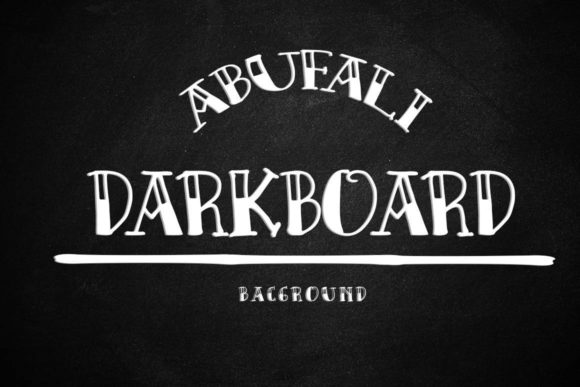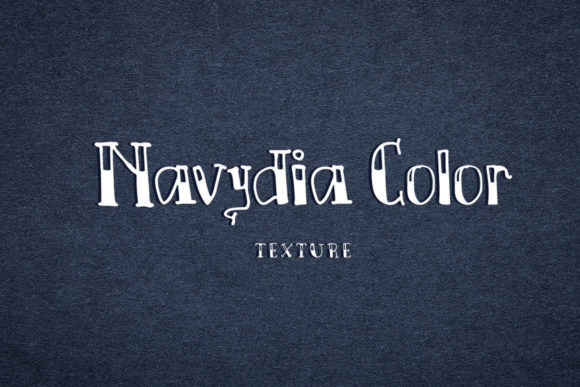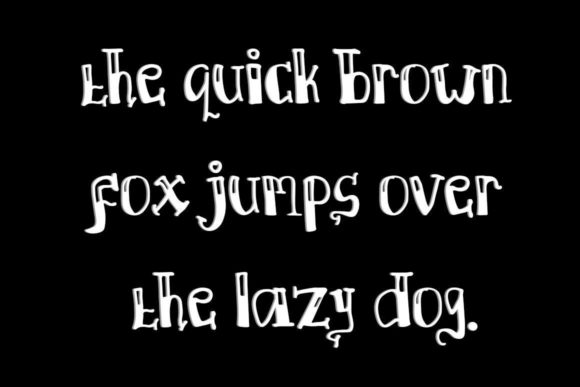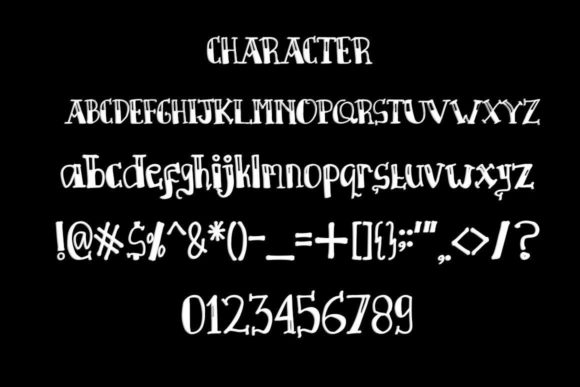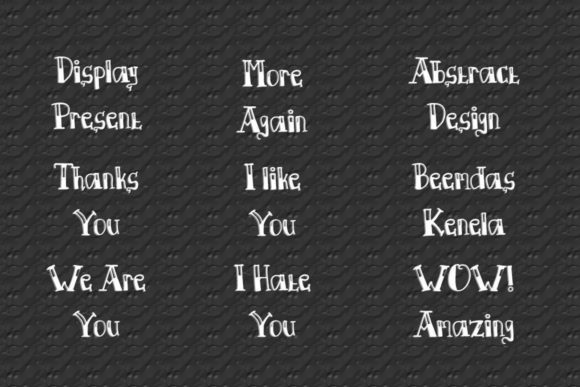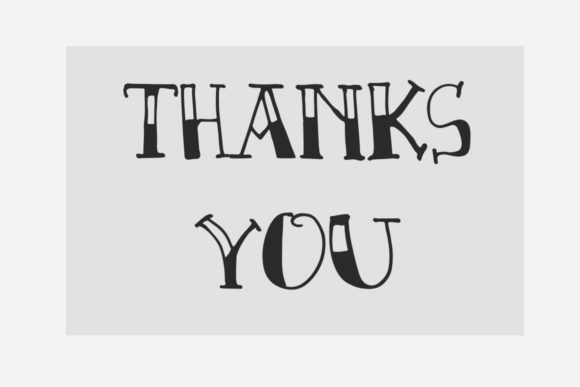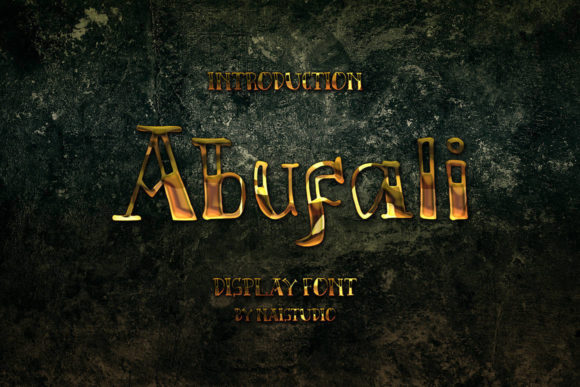
The Abufali Font: A Playful Game-Changer for Your Designs
This unique and interesting display font embodies playfulness and authenticity, making it the perfect choice for any project you can think of. Add this chunky lettered font to your designs and notice how it makes them come alive!
An Honest Review of Abufali Font
- ✨ Unique and playful design that adds a touch of personality to any project
- ✅ Highly legible, even in large and small sizes
- 💥 Perfect for titles, headings, and emphasis text
- 🎉 Works well with both digital and print designs
While Abufali is an amazing font, there are a few things to keep in mind:
- 🤔 May not be suitable for body text or long paragraphs, as it’s primarily designed for display purposes
- ⚠️ Limited availability of stylistic alternates, which may limit its versatility in certain design contexts
One of the best things about Abufali is its support for OpenType features and glyphs. Here are a few tips for getting the most out of these features:
- Use the glyph panel in Adobe Photoshop or Illustrator to access alternative characters and ligatures
- Experiment with different stylistic alternates to add visual interest to your design
The Backstory of Abufali Font
Abufali was designed by a team of creatives who wanted to create a font that was both playful and authentic. Inspired by the beauty of hand-drawn lettering, they crafted a font that would bring a touch of personality to any design. Today, Abufali is used by designers and crafters around the world to add a unique and interesting touch to their projects.
Q: What is Abufali font?
A: Abufali is a unique and interesting display font that embodies playfulness and authenticity.
Q: Is Abufali suitable for body text?
A: While Abufali is highly legible, it’s primarily designed for display purposes and may not be suitable for long paragraphs or body text.
Q: Is Abufali available in different languages?
A: Abufali may not be available in all languages, but it does support a range of languages and can be used for multilingual designs.